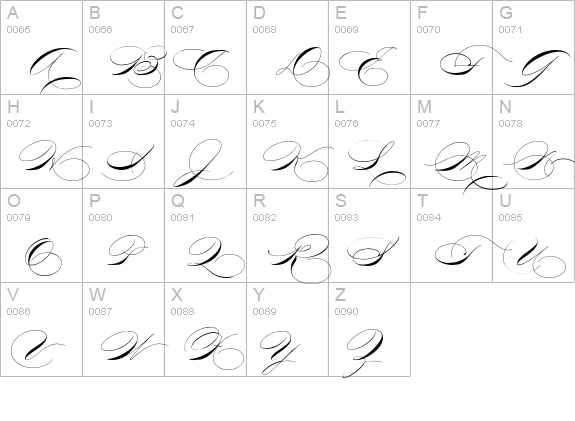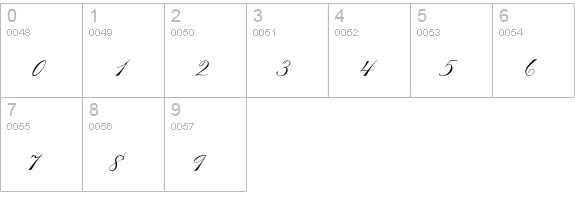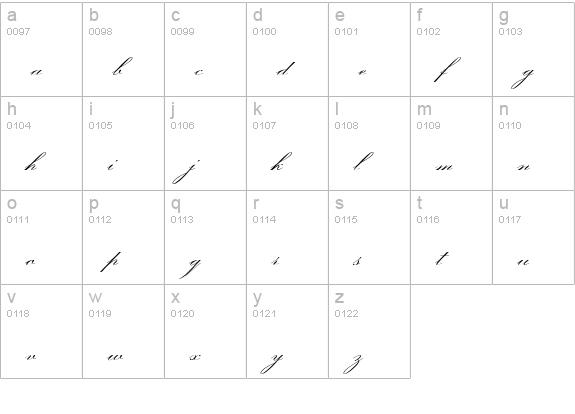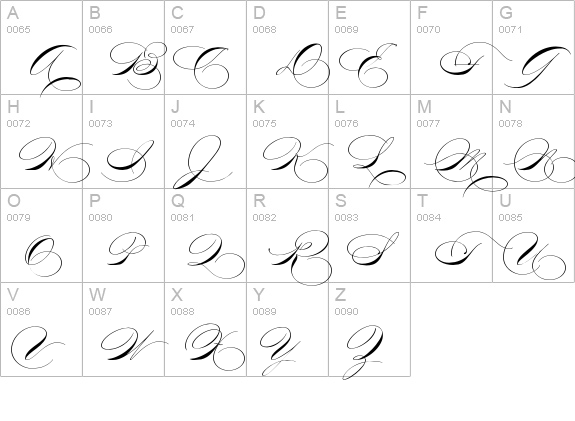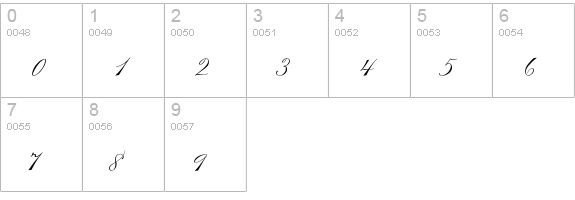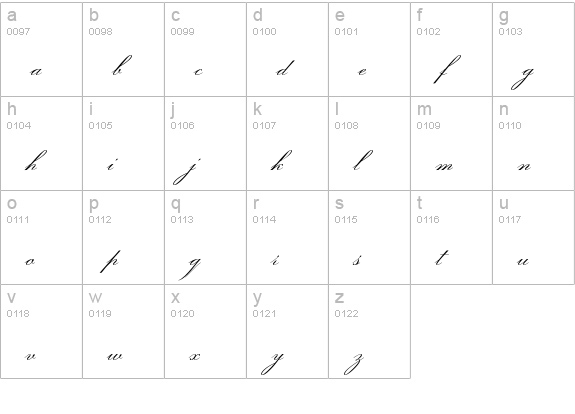
P22ZanerFour Font Details
P22ZanerFour is a stunning and elegant font that exudes a sense of sophistication and timeless beauty. With its classic calligraphic style and graceful curves, this font is perfect for adding a touch of elegance to any design project. Whether you are creating invitations, logos, or any other type of design, P22ZanerFour is sure to make a lasting impression. The best part? P22ZanerFour is available for free download at FontsMarket.com. This means you can easily access this exquisite font and use it in your projects without any cost. Don't miss out on the opportunity to enhance your designs with the beauty of P22ZanerFour. Download it today and elevate your creations to a whole new level of sophistication.